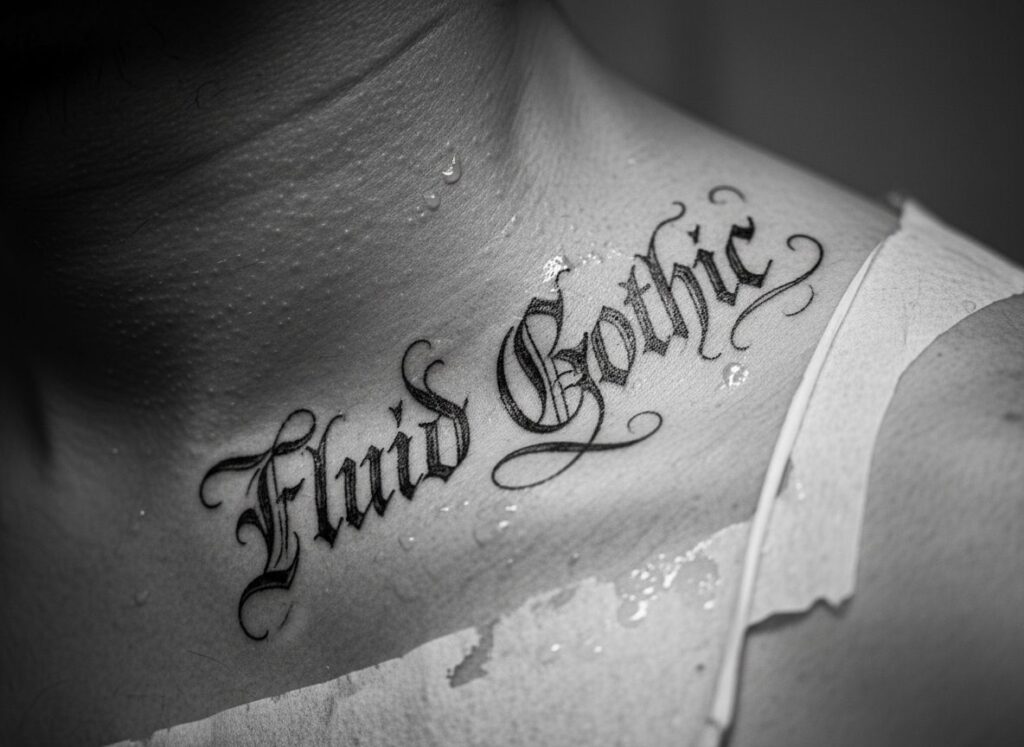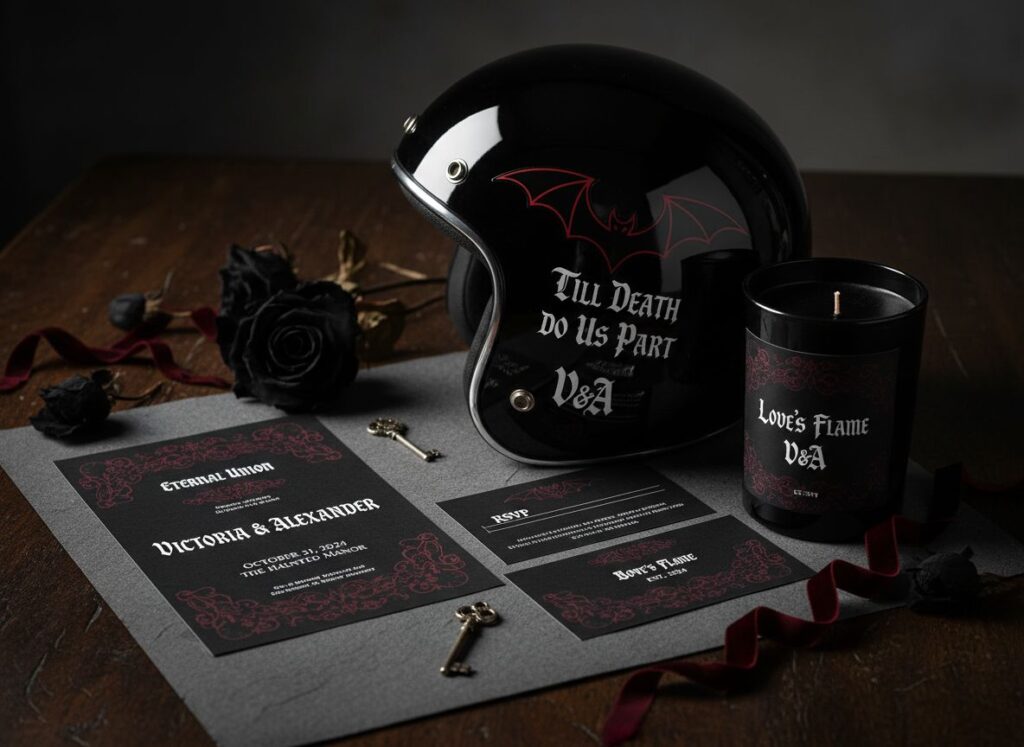
Gothic Letter Font: Elevate Style with Refont AI Generator
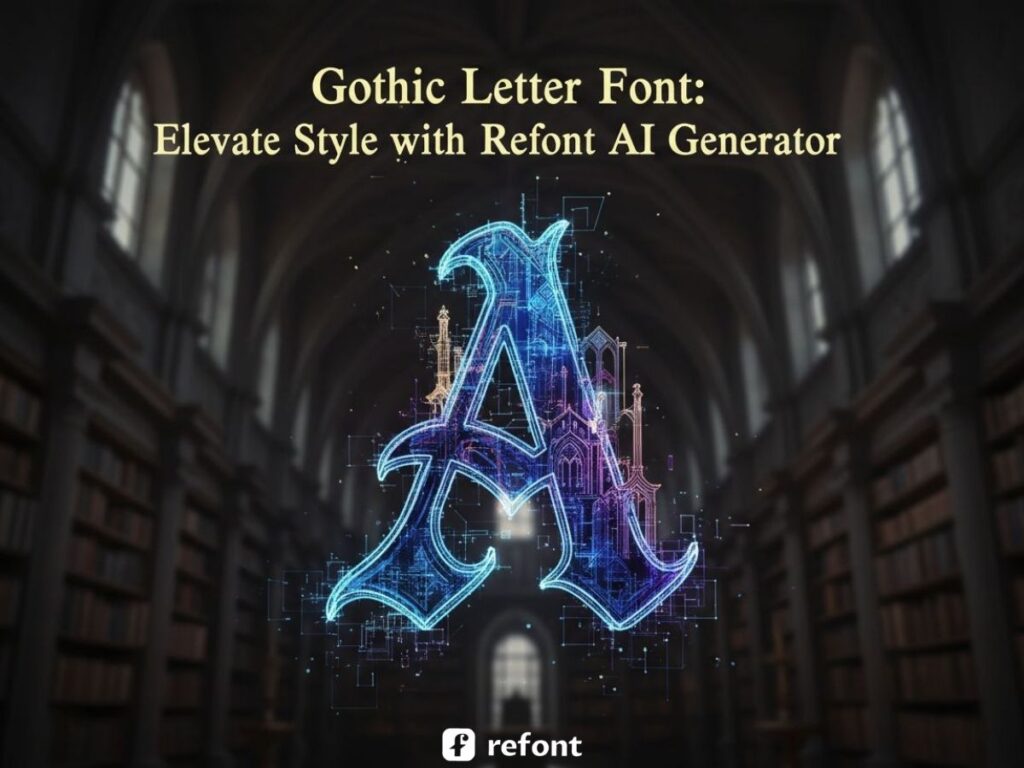
Introduction: The Dark Elegance of the Digital Age
Beyond Typography: The Soul of the Gothic Letter Font
Let’s be honest: standard sans-serif fonts are the "plain white toast" of the internet. They’re functional, sure, but do they make your heart race? Do they scream "identity"? Probably not. In an era where "Aesthetic Explorers" are reclaiming the shadows—think the rise of Dark Academia, the neon-soaked grime of Cyberpunk, and the raw edge of high-end Streetwear—the demand for a powerful gothic letter font has never been higher. Typography isn’t just a way to read; it’s the clothes your words wear. And right now, everyone wants to wear something bespoke.
Enter Refont. We’ve all been there: scrolling through endless font libraries, looking for that perfect "vibe," only to realize every gothic letter font looks like a stiff relic from a 1990s metal CD. It’s either too illegible or too "Microsoft Word 2003." Refont changes the game by moving from static selection to AI-driven creation. We believe "visual weight" is the secret sauce of personal branding. A well-placed gothic letter font doesn't just sit on a page; it commands authority, adds mystery, and increases creative efficiency by giving you professional results in seconds.
The AI Revolution: Why Refont’s Gothic Generator is Different
Why Your Design Needs an AI-Powered Gothic Letter Font
If you’ve ever tried to design custom gothic brand lettering, you know the pain. Traditional fonts are "frozen." You type a letter, and it looks exactly the same every time. But real calligraphy has soul—it has ink bleeds, pressure variances, and a sense of movement. That’s where our AI steps in. We aren't just giving you a file; we're giving you a digital artisan that understands unique gothic text styles.
From "Font Library" to "Artisan Studio": The Bespoke Feel
Most websites give you a library; Refont gives you a studio. Traditional font files often feel "stiff" because they are mathematically perfect. Our AI mimics the human hand, generating a gothic letter font with strokes that simulate real pressure and organic ink flow. It’s the difference between a mass-produced suit and one tailored specifically for your measurements. When you create custom gothic brand lettering here, it feels intentional, not accidental.
Dynamic Flourishes and Structural Tension
One of the hardest things to get right in a gothic letter font is the "flourish"—those elegant, sharp lines that dance around the letters. In the past, you’d need to be a master of Adobe Illustrator to add these manually. Refont’s AI calculates structural tension, adding unique decorative lines that look hand-drawn. This ensures your unique gothic text styles have that high-end, bespoke aesthetic that usually takes a pro hours to perfect.
Style Versatility: Authentic Ink to Neon Cyberpunk
Whether you are looking for an "Authentic Ink Manuscript" style for a historical project or a "Neon Cyberpunk" edge for a tech brand, the generator adapts. It’s about matching the mood of the Aesthetic Explorer. By experimenting with different unique gothic text styles, you can find the exact intersection of ancient tradition and futuristic rebellion.
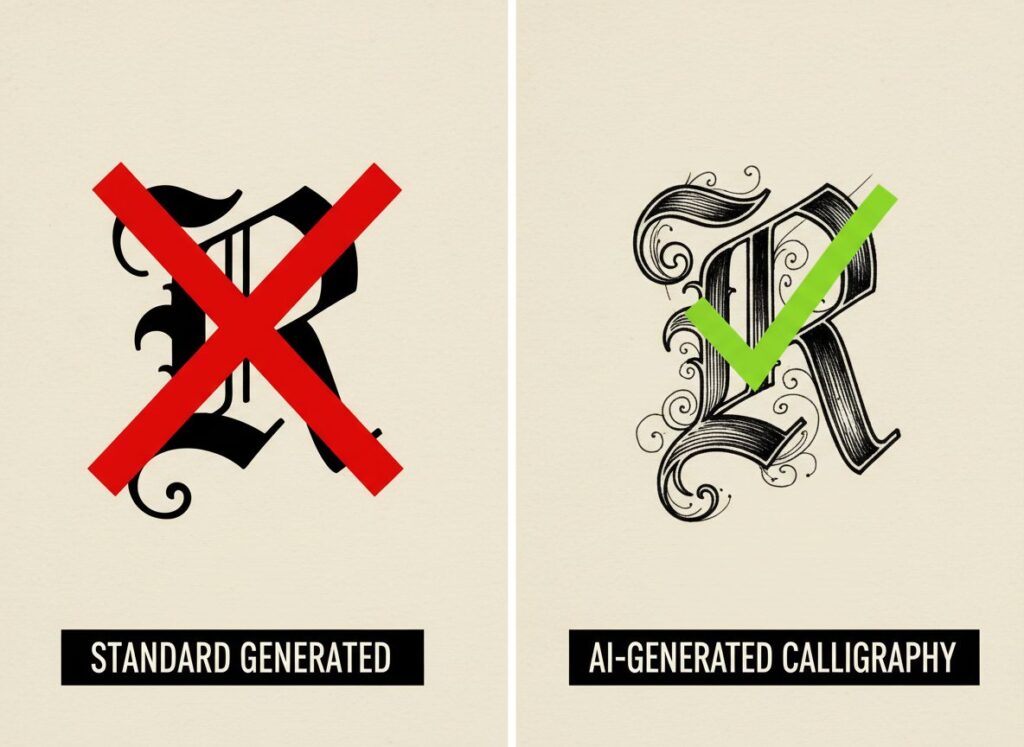
Scenario Deep-Dive: Inspiration for Aesthetic Explorers
Real-World Scenarios for Mastering the Gothic Letter Font
Let’s get down to brass tacks. How do you actually use a gothic letter font without making your project look like a low-budget Halloween party flyer from 2005? The secret isn’t just in the letters themselves; it’s in the context and the "visual gravity" they carry. Whether you are scaling a global streetwear empire or just trying to make your motorcycle helmet look like a piece of high-end art, custom gothic brand lettering is your golden ticket to standing out in a digital world that is increasingly "same-y."
The Streetwear Visionary: Branding and Apparel
- The Pain: We are currently living through a "cliché-pocalypse." Every aspiring designer goes to Google Fonts, downloads the first generic gothic letter font they see, and slaps it onto a hoodie. It’s predictable. It’s tired. Worst of all, an uninspired gothic letter font makes a $60 premium garment look like a $5 fast-fashion replica from a discount bin.
- The Solution: Refont breaks this cycle by allowing you to generate a gothic letter font that feels aggressive, intentional, and exclusive. Instead of static shapes, our AI introduces structural tension and distortion that mimics high-end bespoke tailoring. By focusing on custom gothic brand lettering, you give your customers a reason to buy into the "soul" of your brand. It’s about creating unique gothic text styles that demand respect and a second look.
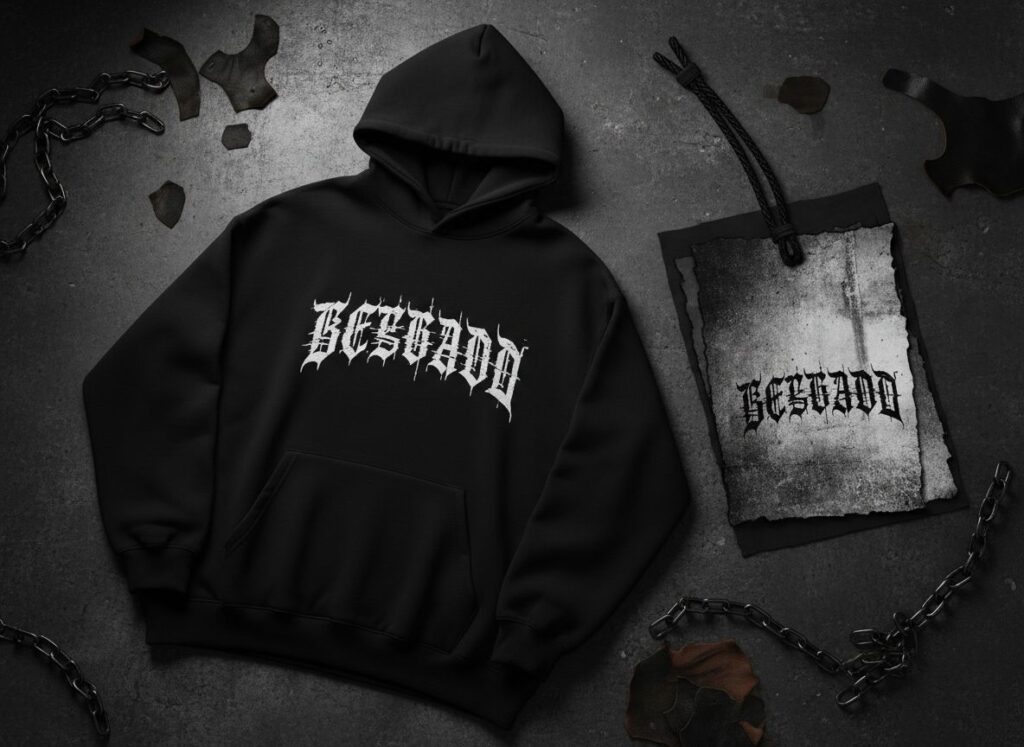
The Modern Ink Seeker: Tattoo Stencils and Inspiration
- The Pain: Tattoos are a commitment. One of the biggest nightmares for both the client and the artist is finding a gothic letter font that actually respects human anatomy. Most digital fonts are rigid; when you put a standard gothic letter font on a bicep or a ribcage, it looks like a cheap sticker that doesn't "breathe" or flow with the skin.
Whether you are building custom gothic brand lettering for a new fashion label or just want to spice up your social media with unique gothic text styles, Refont is here to make the process effortless.